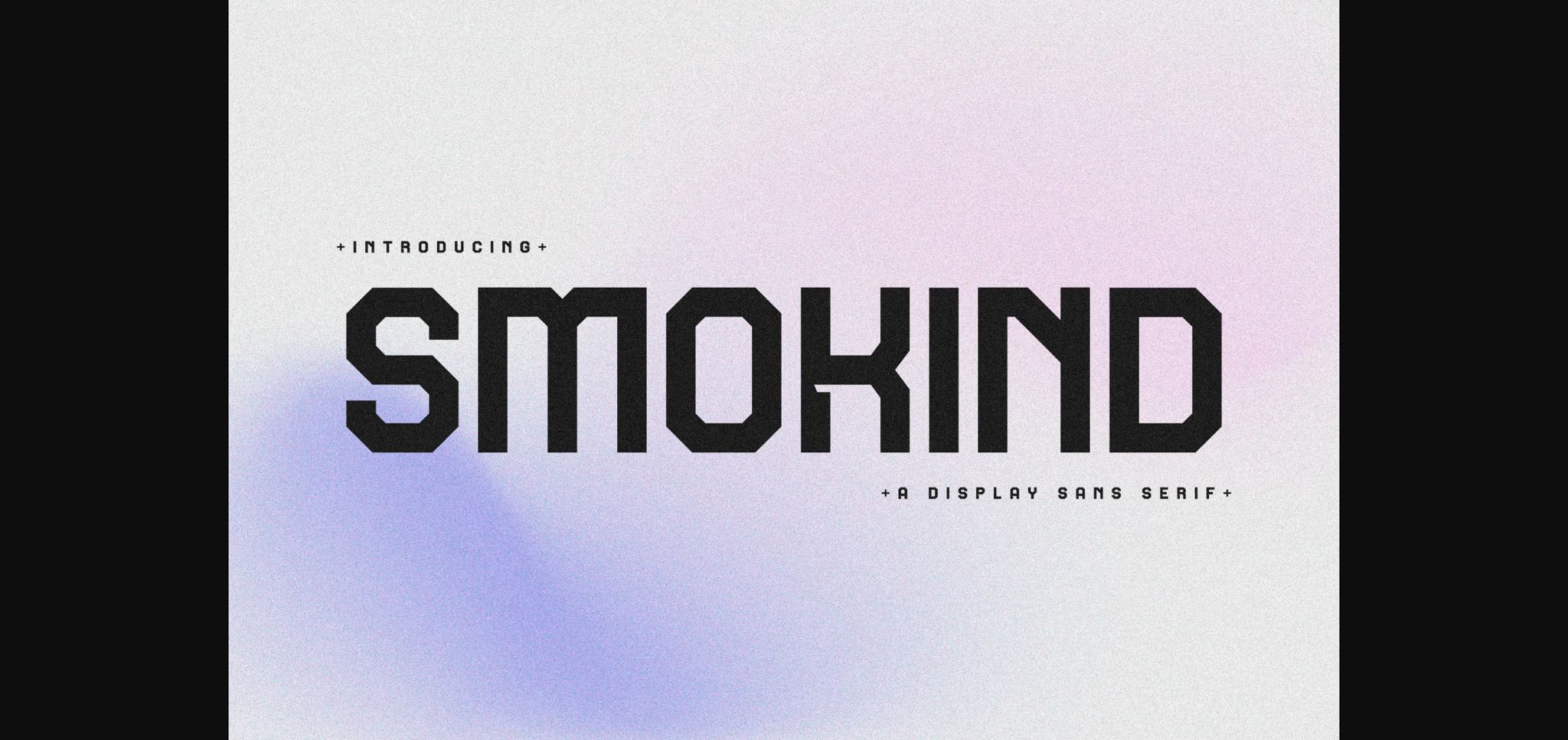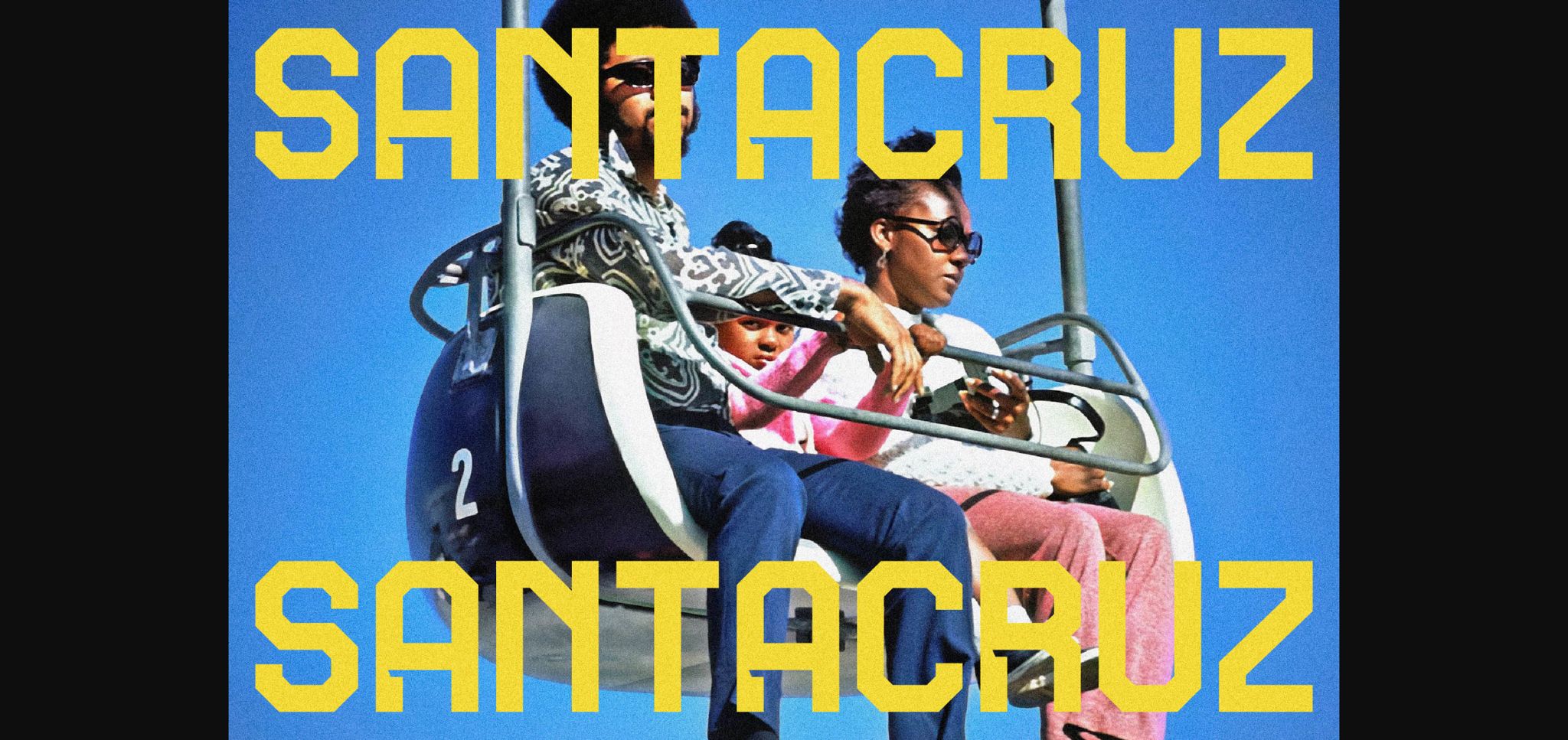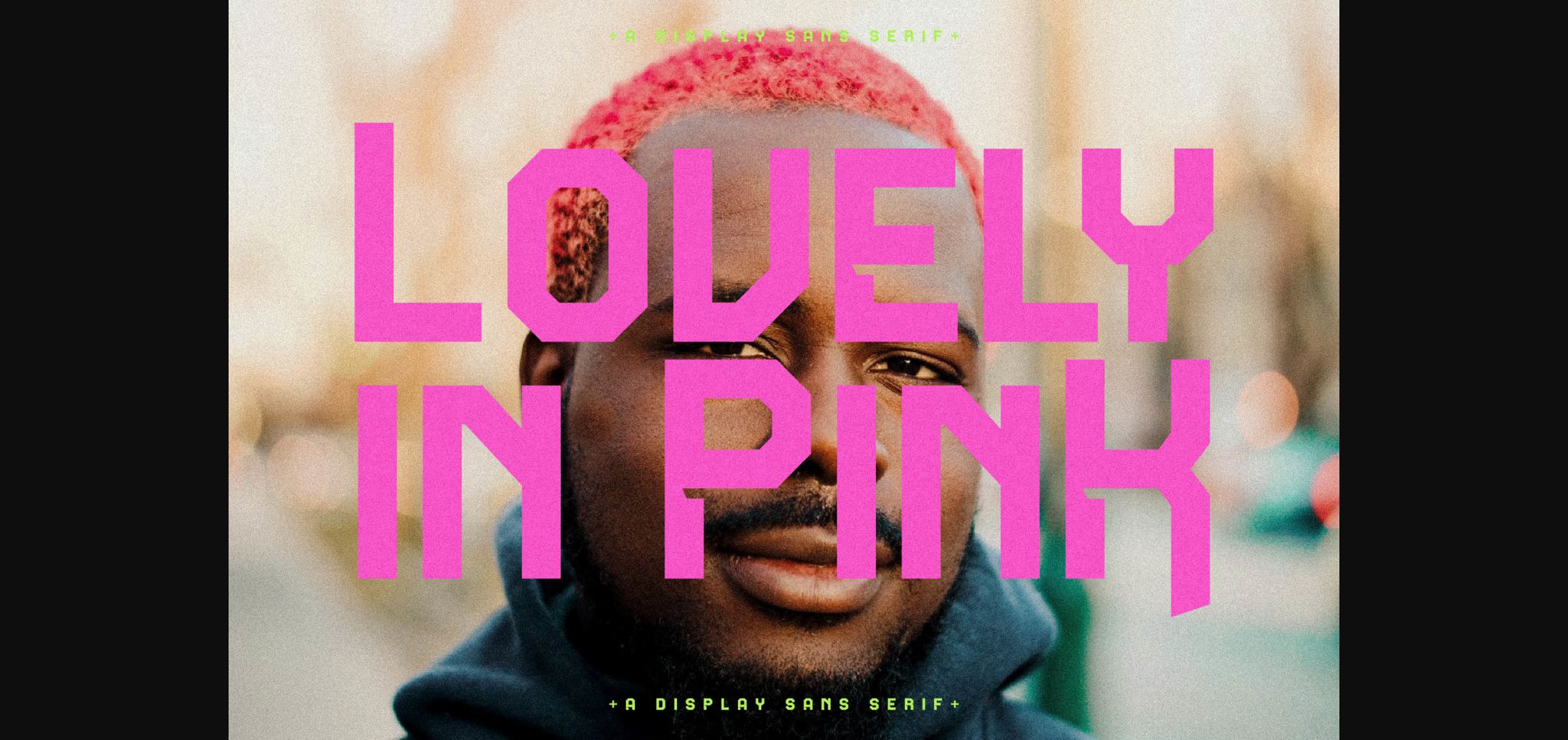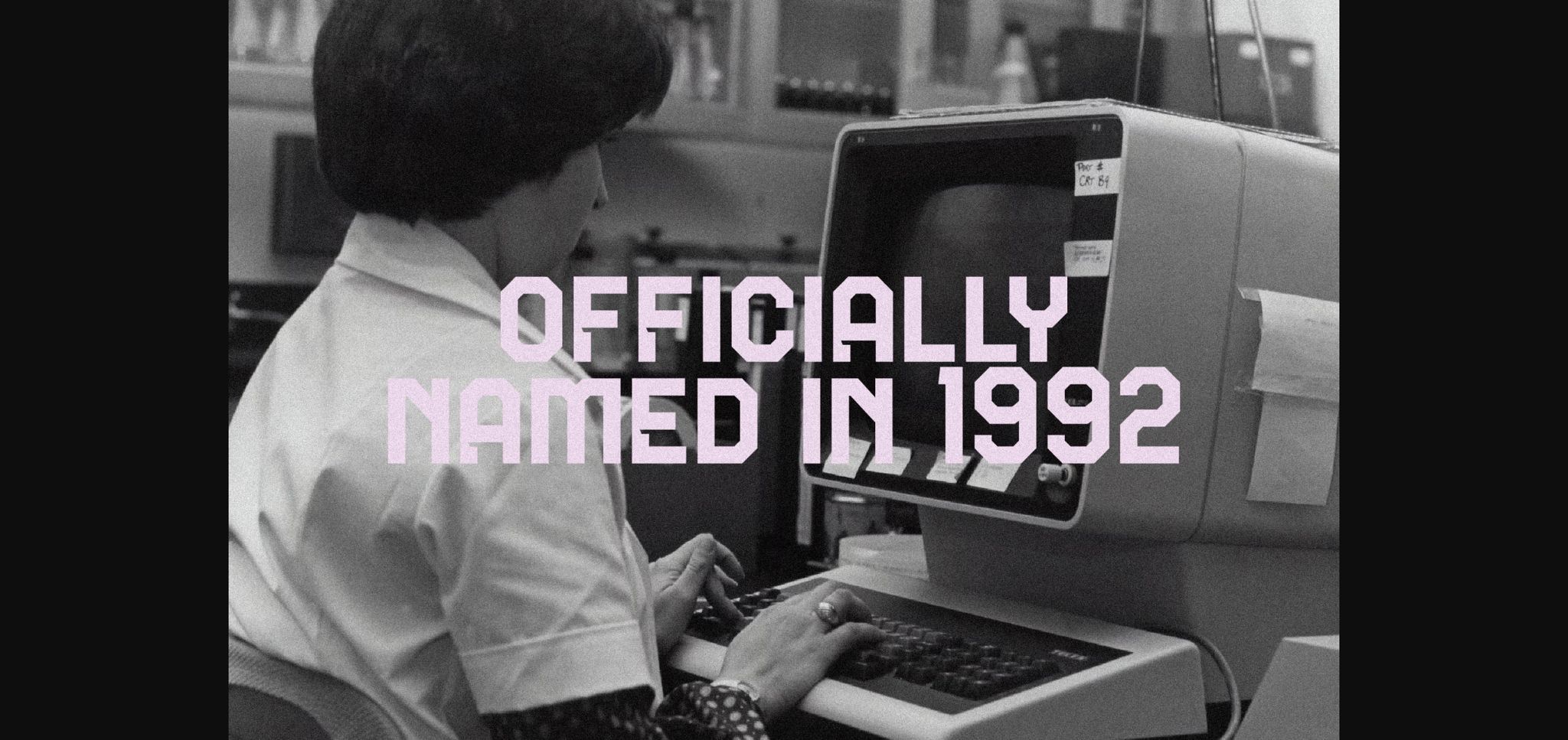
About Smokind Font
Smokind is a modern and classic sans serif typeface with a unique style and modern look.
This typeface is perfect for an elegant & luxury logo, book or movie title design, fashion brand, magazine, clothes, lettering, quotes, and so much more.